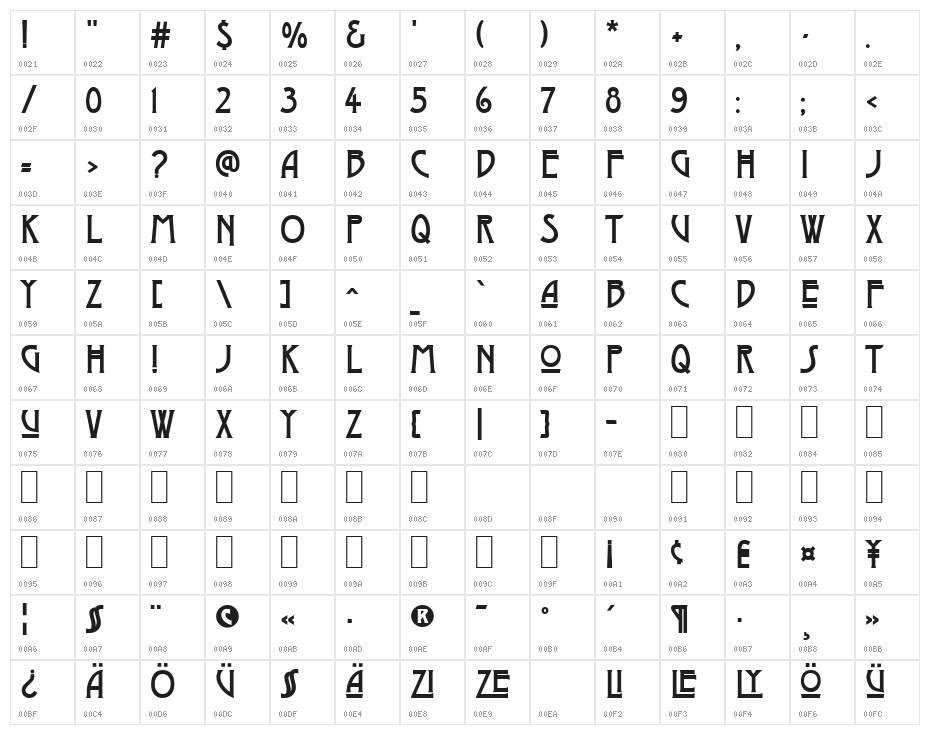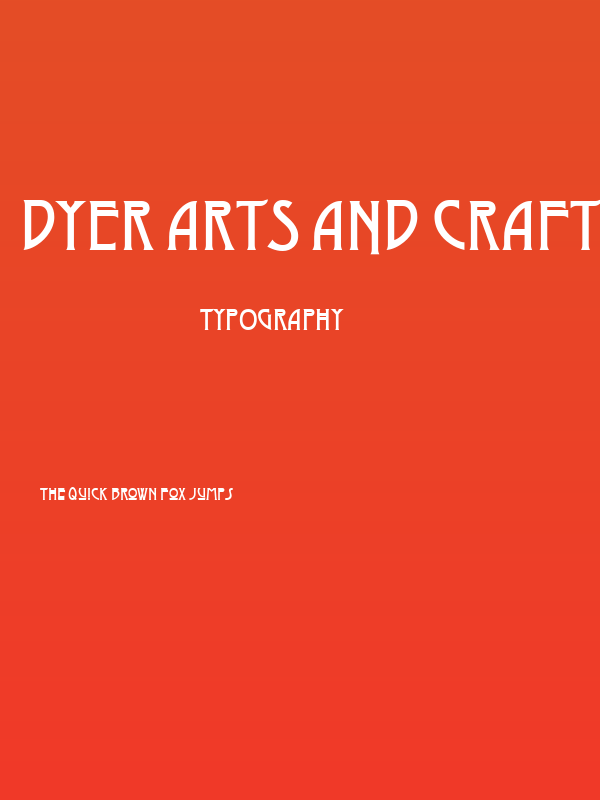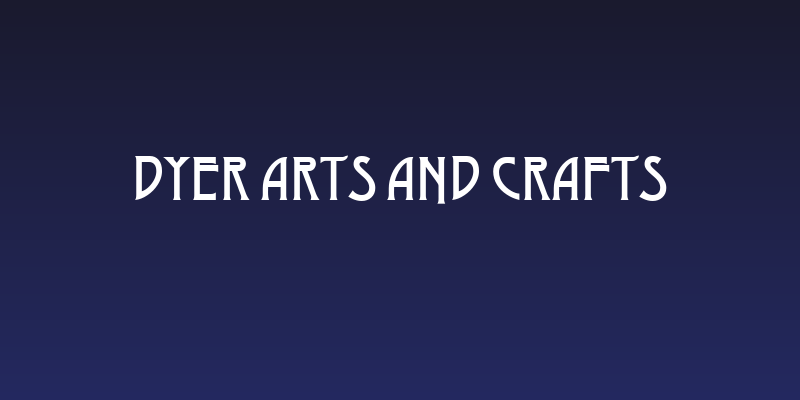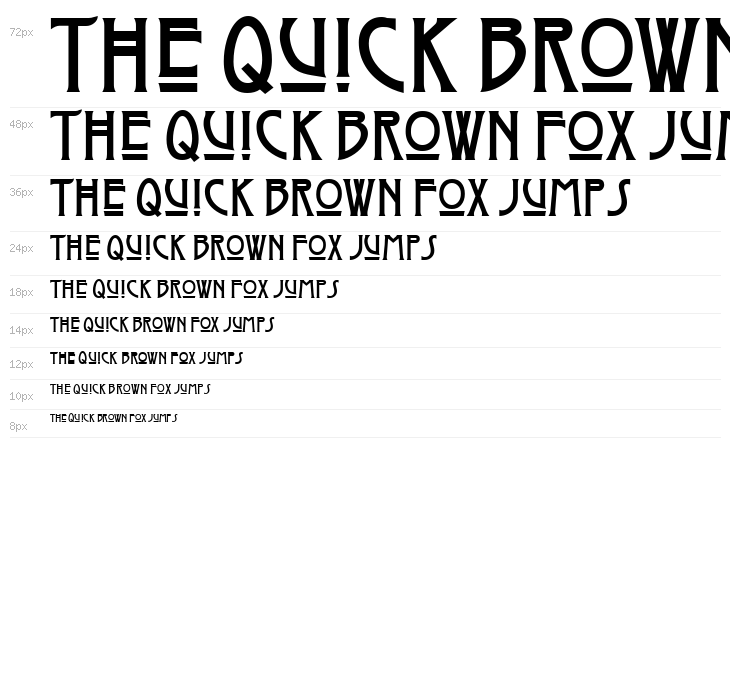
Dyer Arts and Crafts Font
Dyer Arts and Crafts Description
This font features a unique blend of geometric and organic shapes, reminiscent of the Arts and Crafts movement. The characters are bold and slightly condensed, with a distinct handcrafted feel. The uppercase letters have a strong presence, with angular lines and subtle curves that add a touch of elegance. The lowercase letters maintain the same stylistic elements, ensuring consistency throughout the typeface. The numerals are clear and legible, with a similar boldness that complements the alphabet. Special characters are designed with the same attention to detail, making them suitable for various design applications.
Overall StyleVintage
Proposed ProjectsIdeal for projects that require a vintage or handcrafted aesthetic, such as posters, packaging, and branding for artisanal products.